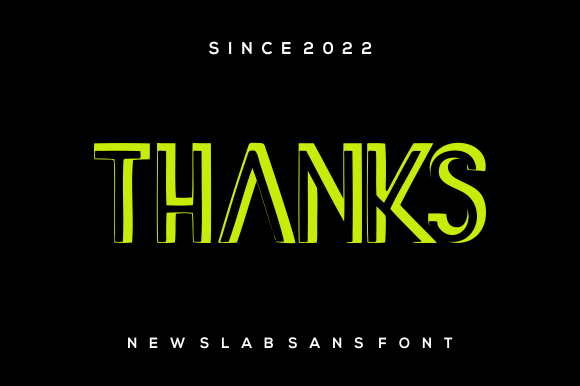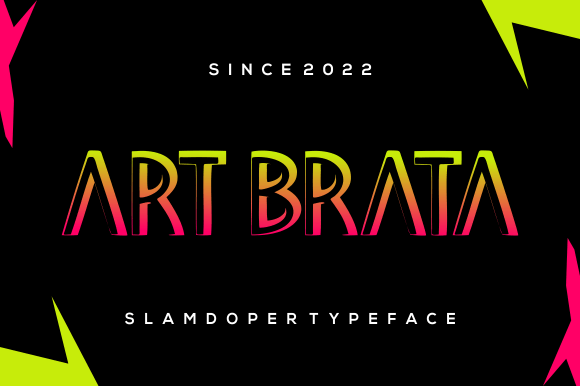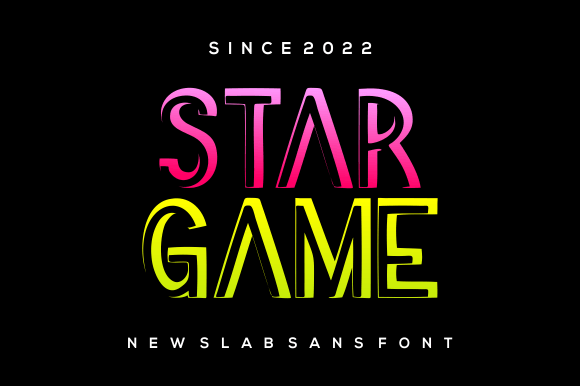
SLAMDOPER FONT SPECIMEN
Slamdoper is a sharp, elegant slab serif typeface. It is the perfect choice when it comes to designing a project which requires a clean look, and elegant note. Use it in your packaging design, perfume design, or fashion design presentation.